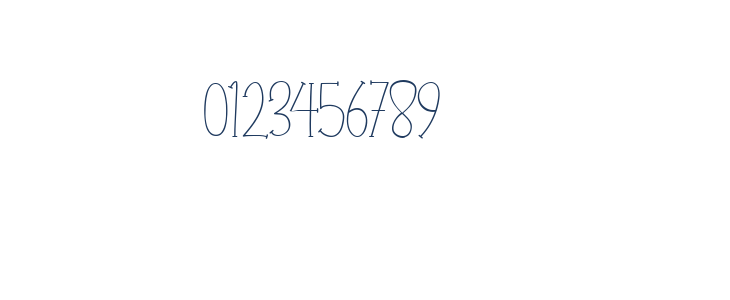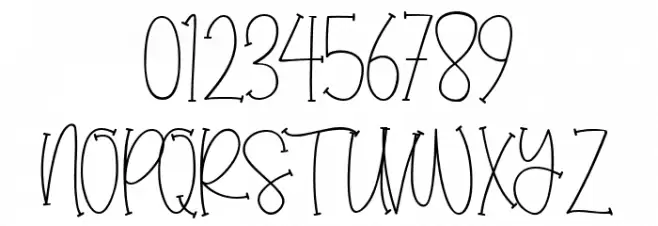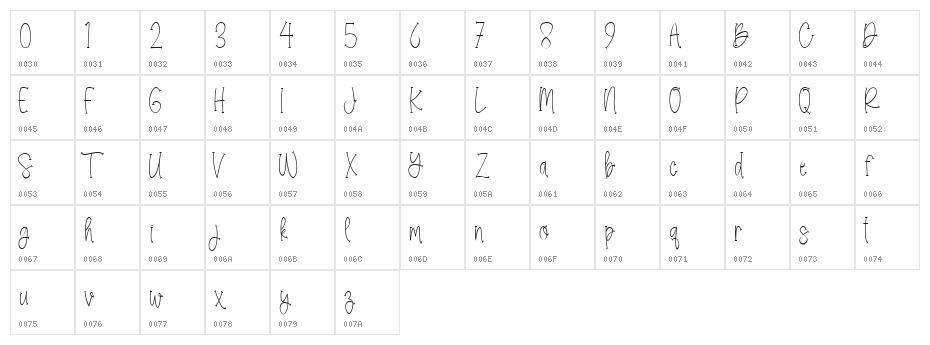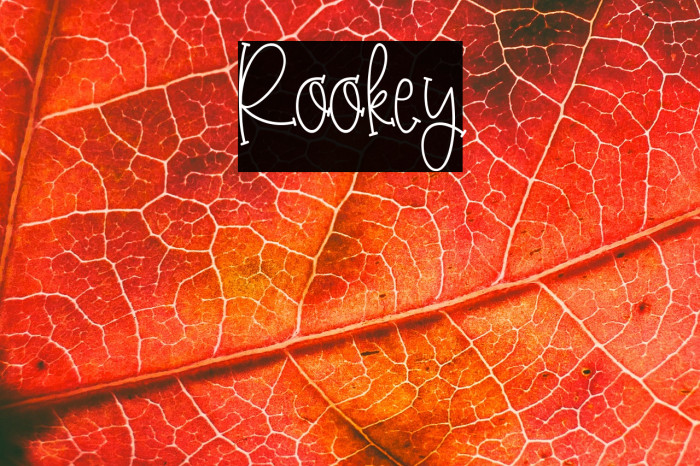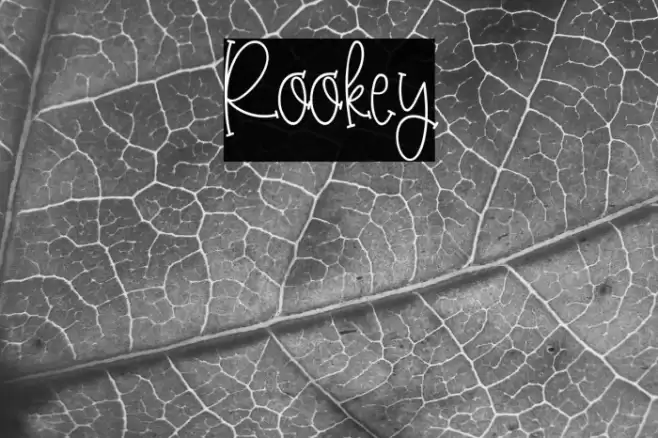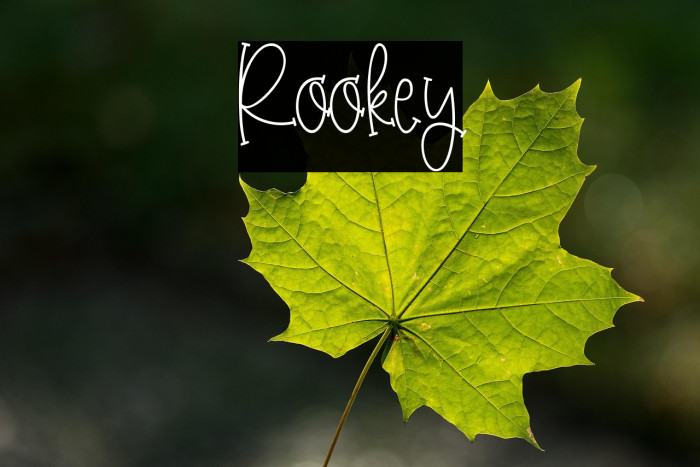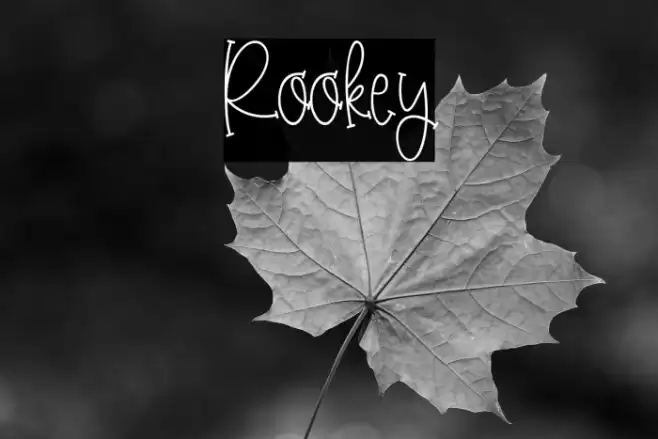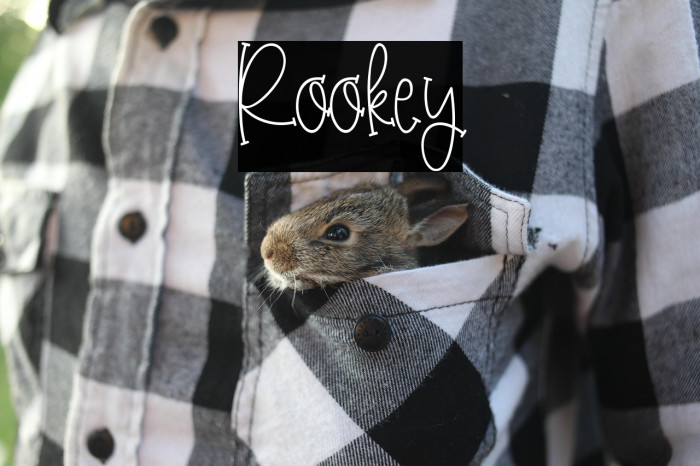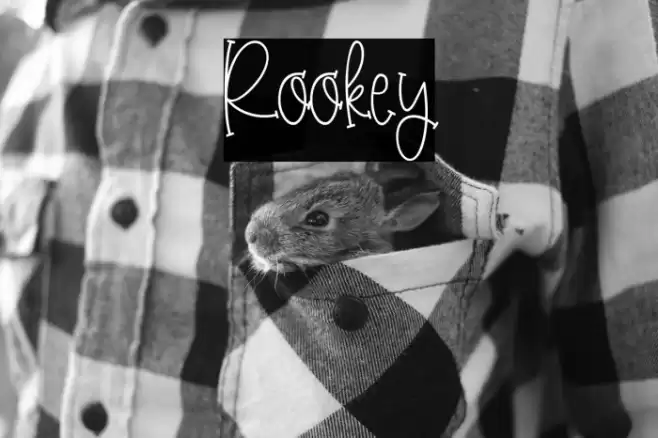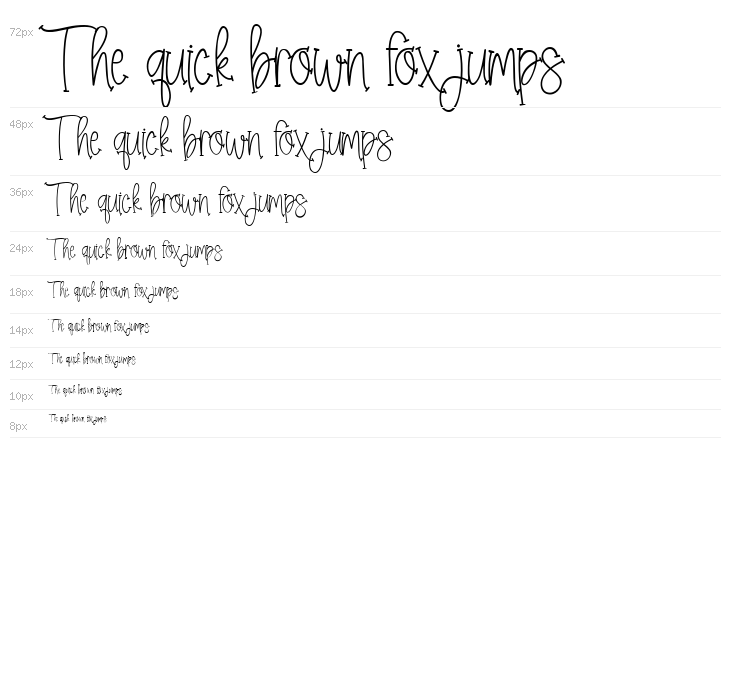
Rookey Font
Rookey Description
This font features a whimsical and playful design with tall, narrow characters that exhibit a hand-drawn quality. The strokes are thin and slightly uneven, giving it a casual and informal appearance. The uppercase letters are particularly elongated, while the lowercase letters maintain a consistent height, adding to the quirky charm. The numbers follow the same playful style, ensuring uniformity across all characters. Special characters are included, maintaining the same artistic flair. This font is ideal for projects that require a touch of creativity and fun, such as children's books, greeting cards, or playful branding.
| Width | Condensed |
| Proposed Projects | Children's books, greeting cards, playful branding, creative invitations. |